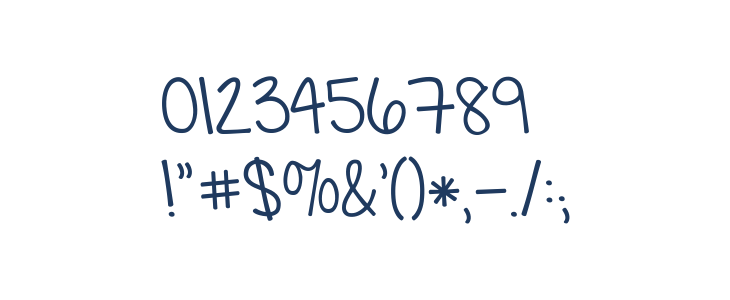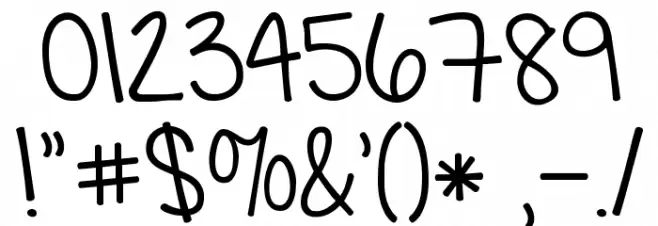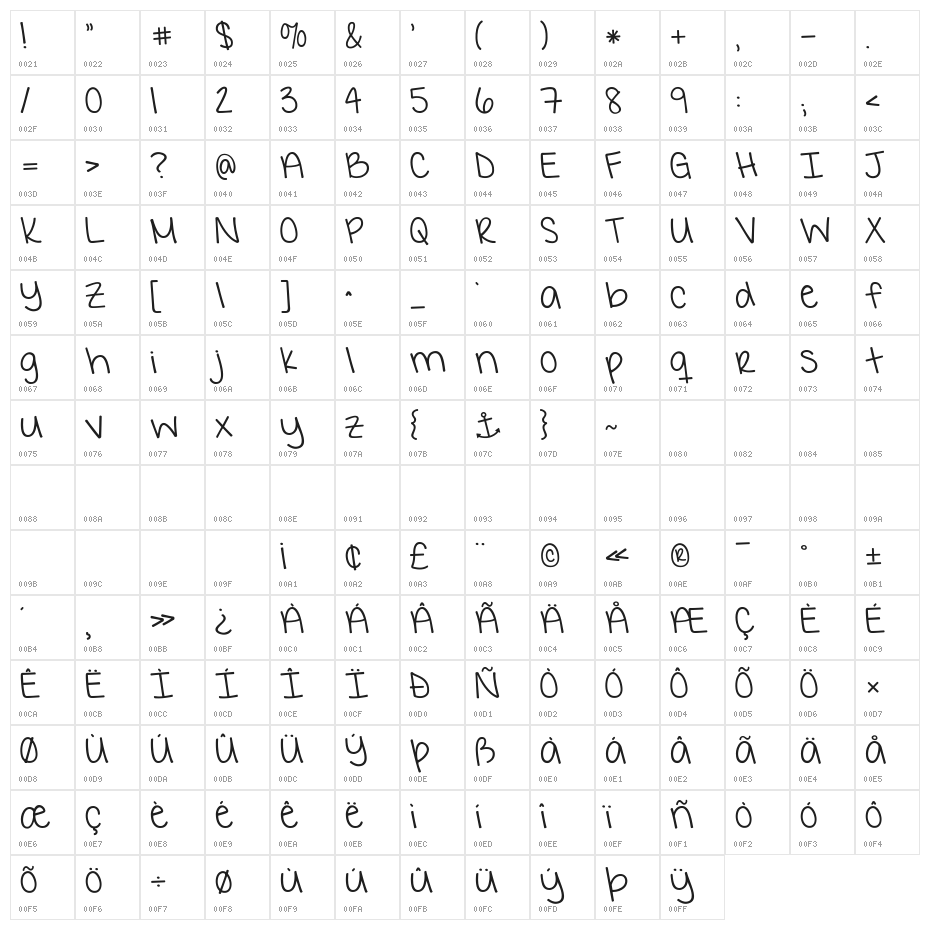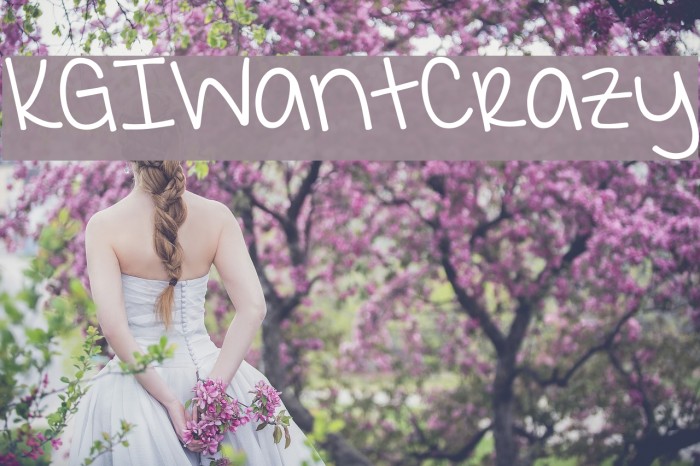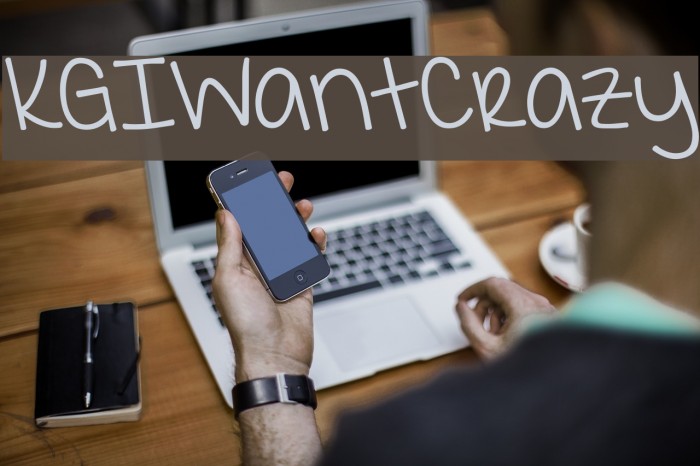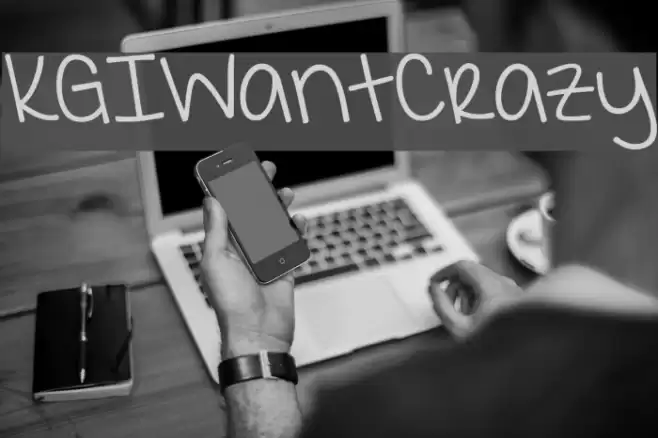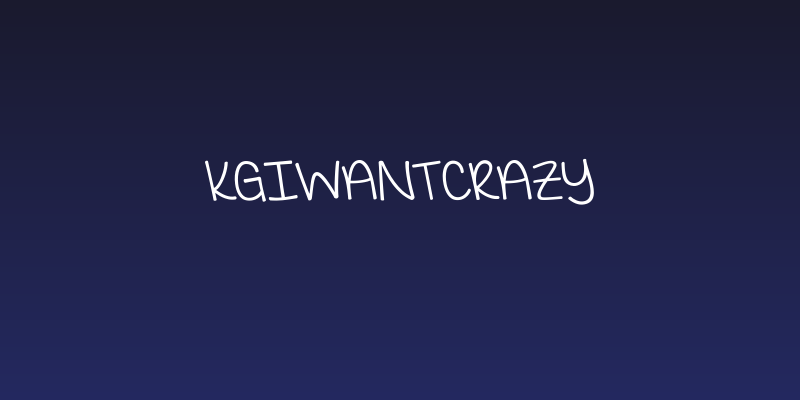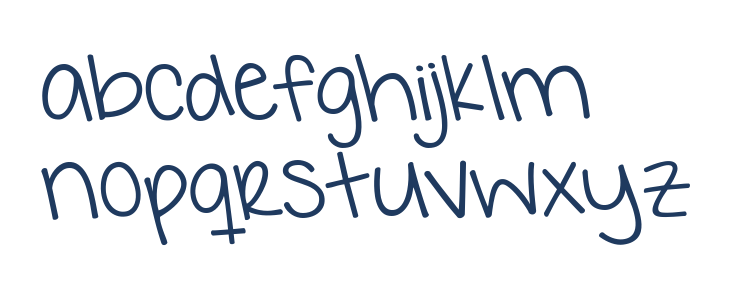
KGIWantCrazy Font
KGIWantCrazy Description
This playful and informal font features a handwritten style with smooth, rounded edges and a casual appearance. The letters are slightly irregular, giving it a friendly and approachable feel. The uppercase and lowercase characters maintain a consistent flow, while the numerals and special characters complement the overall design. Its simplicity and charm make it suitable for projects that require a personal touch.
| Proposed Projects | Ideal for greeting cards, children's books, casual branding, and social media graphics. |